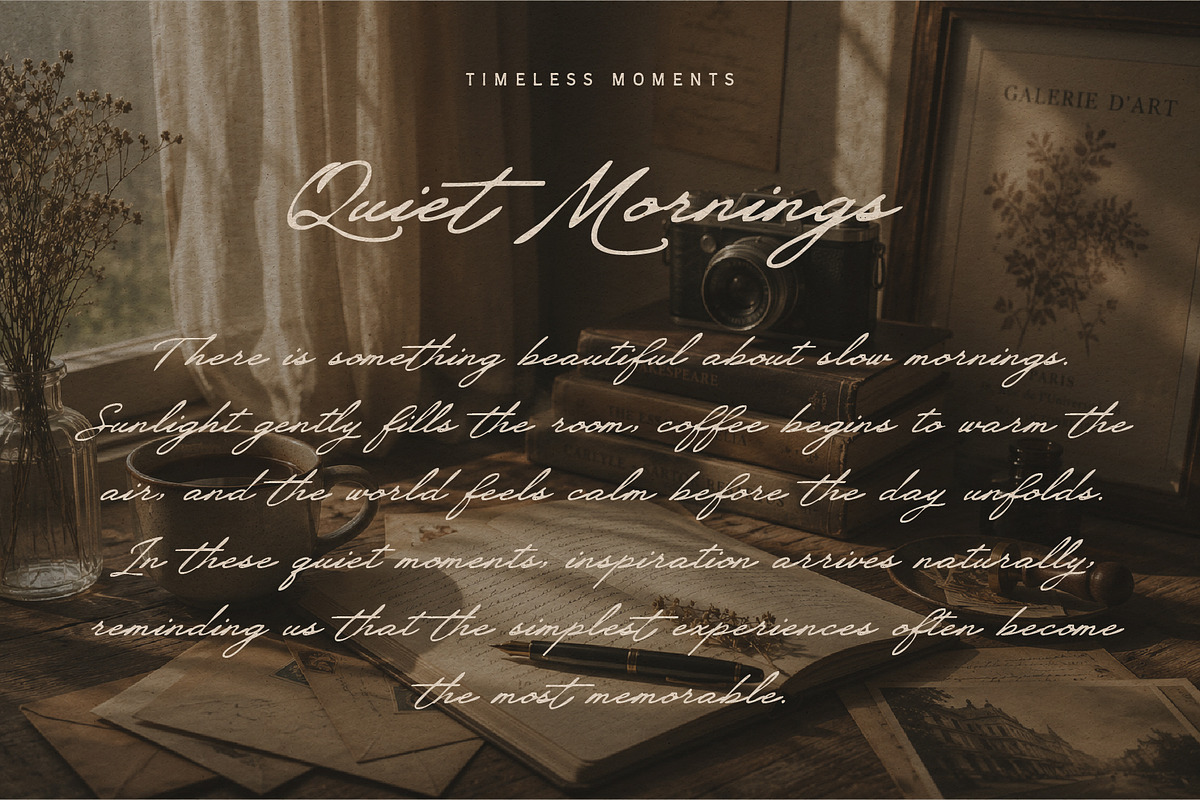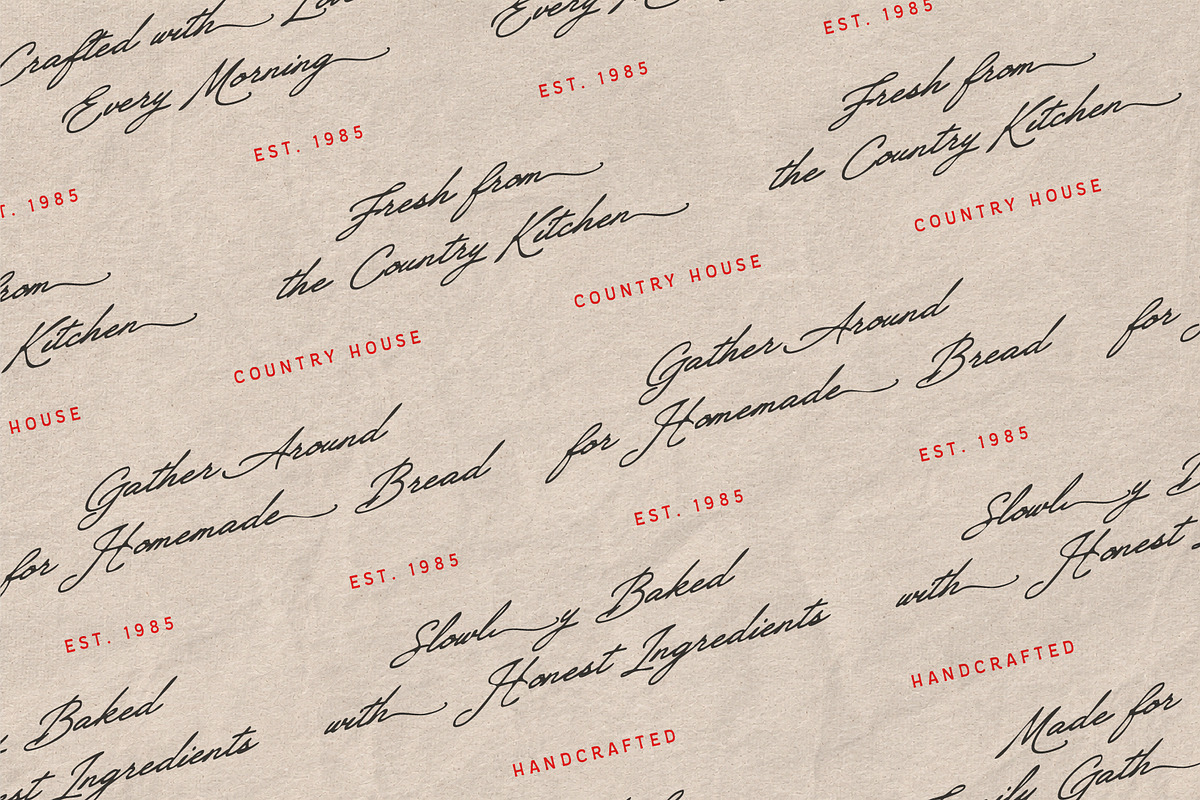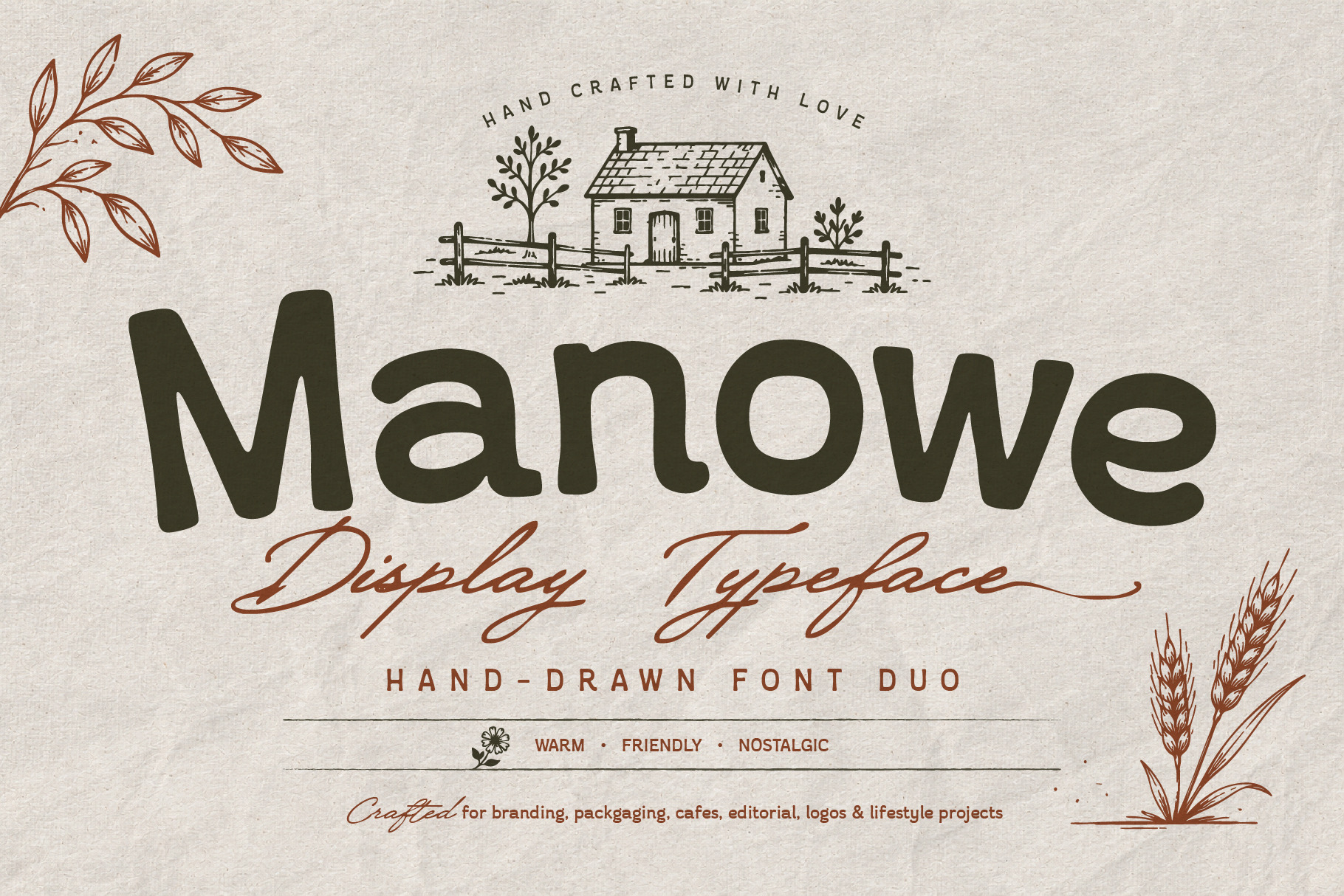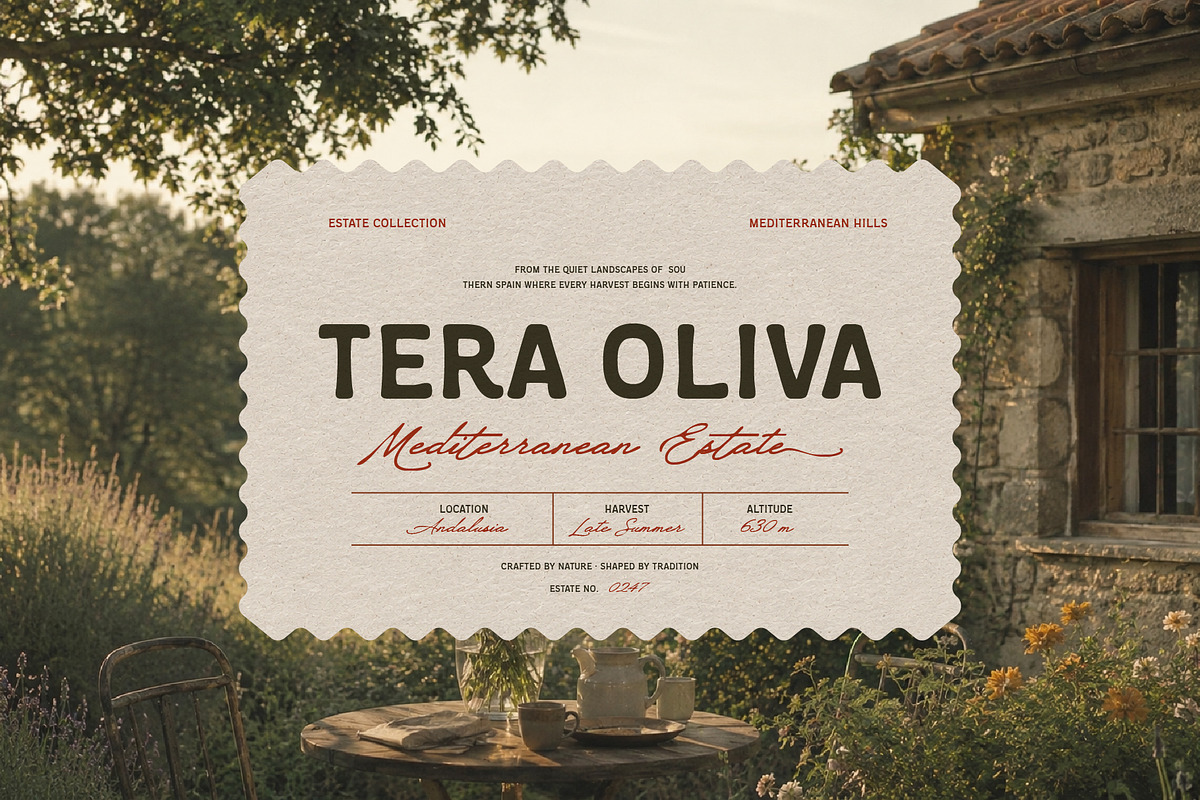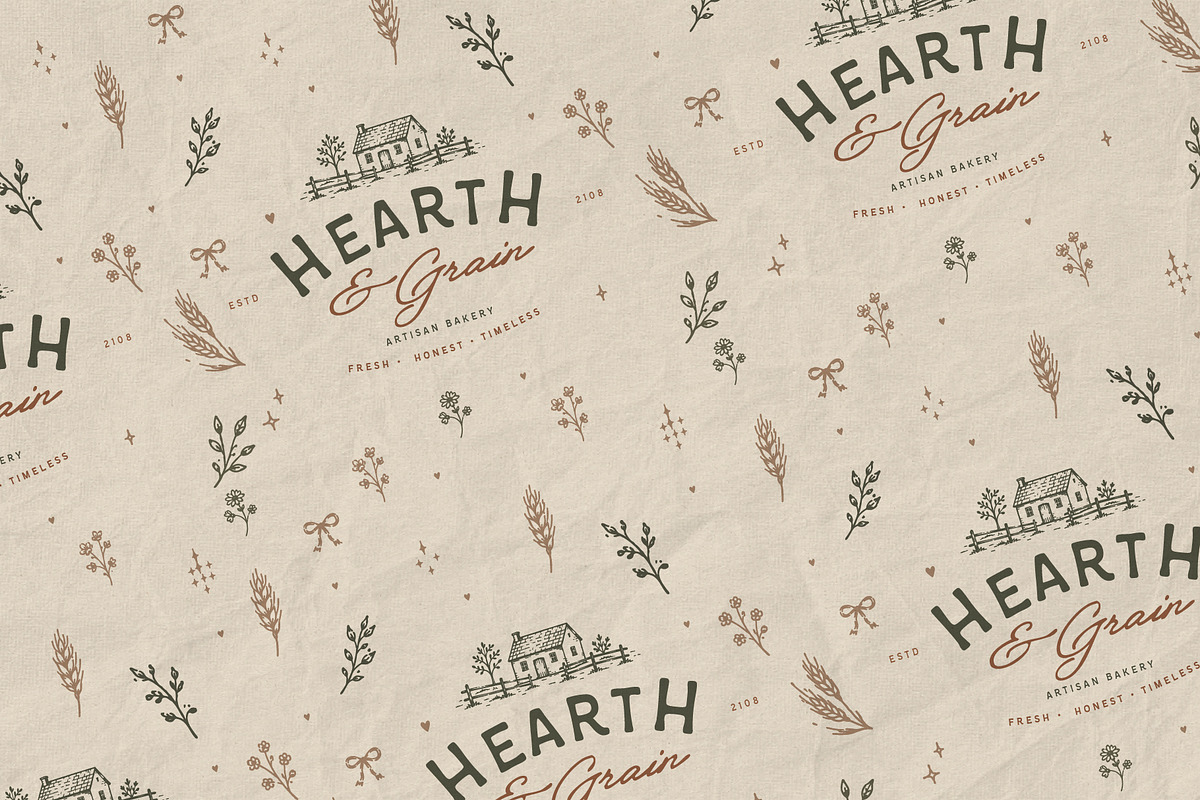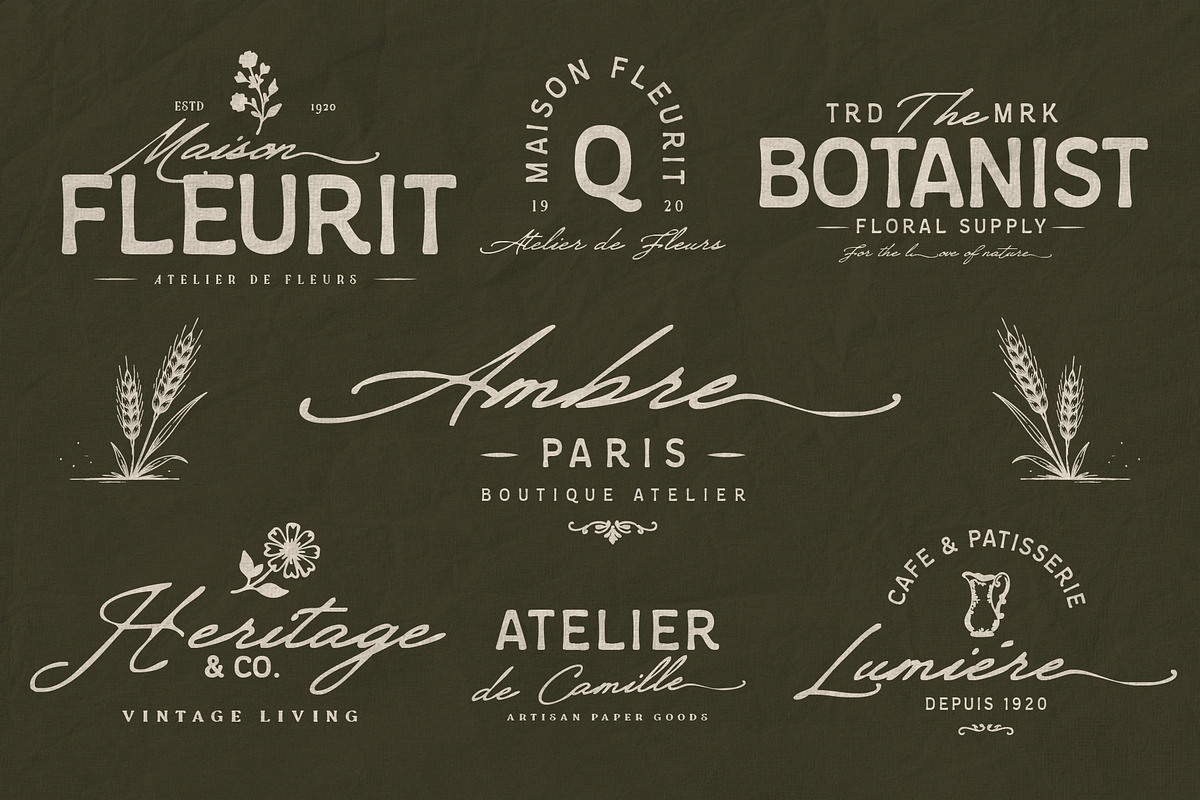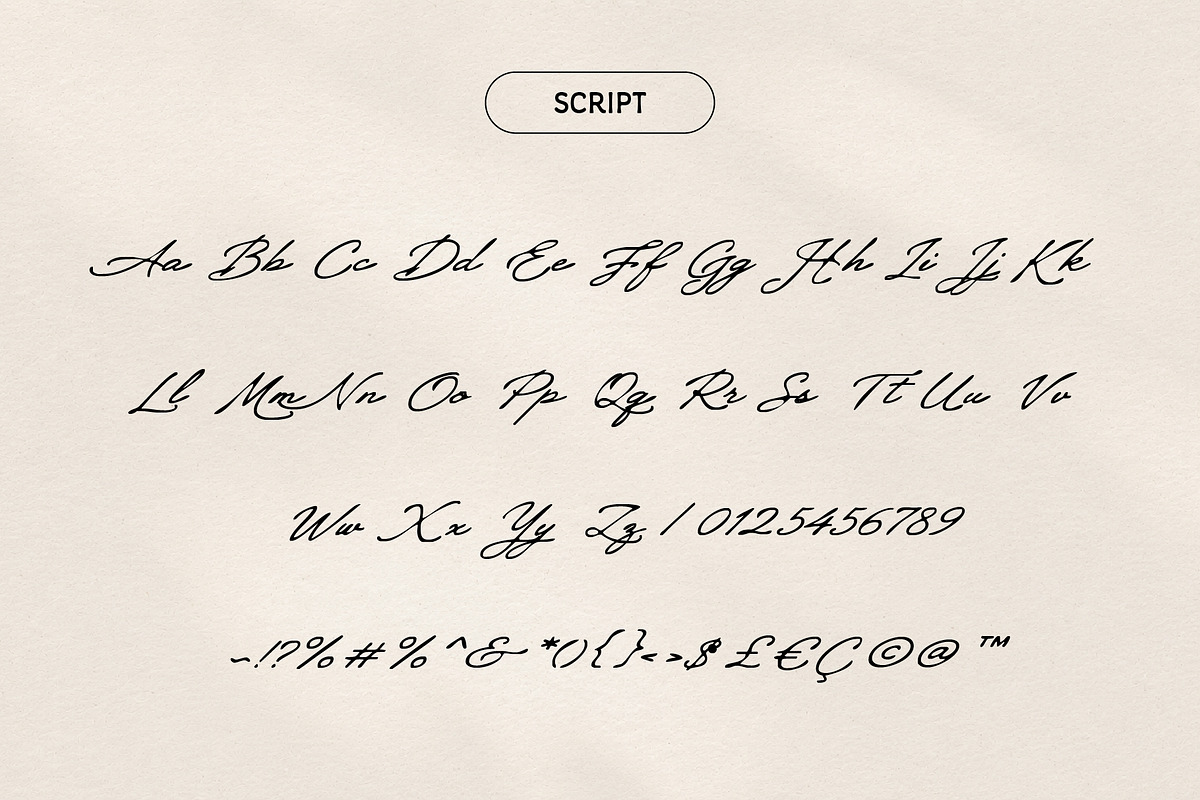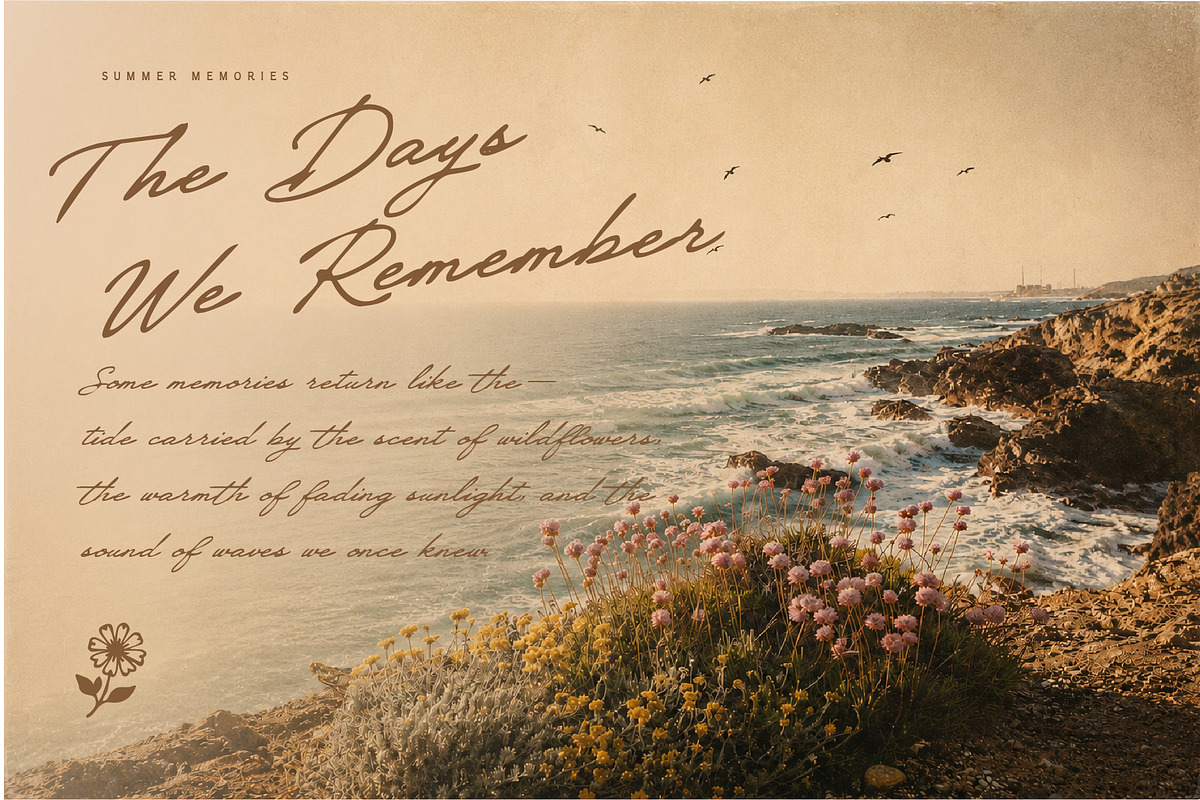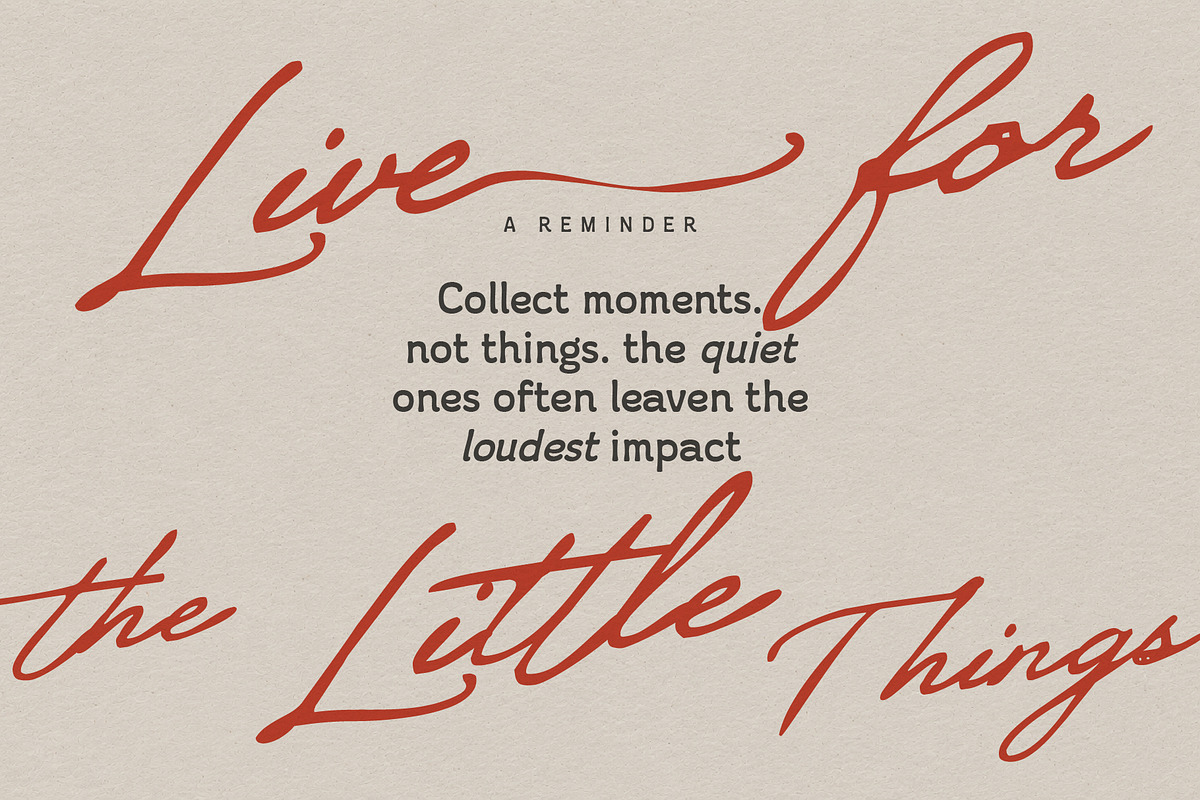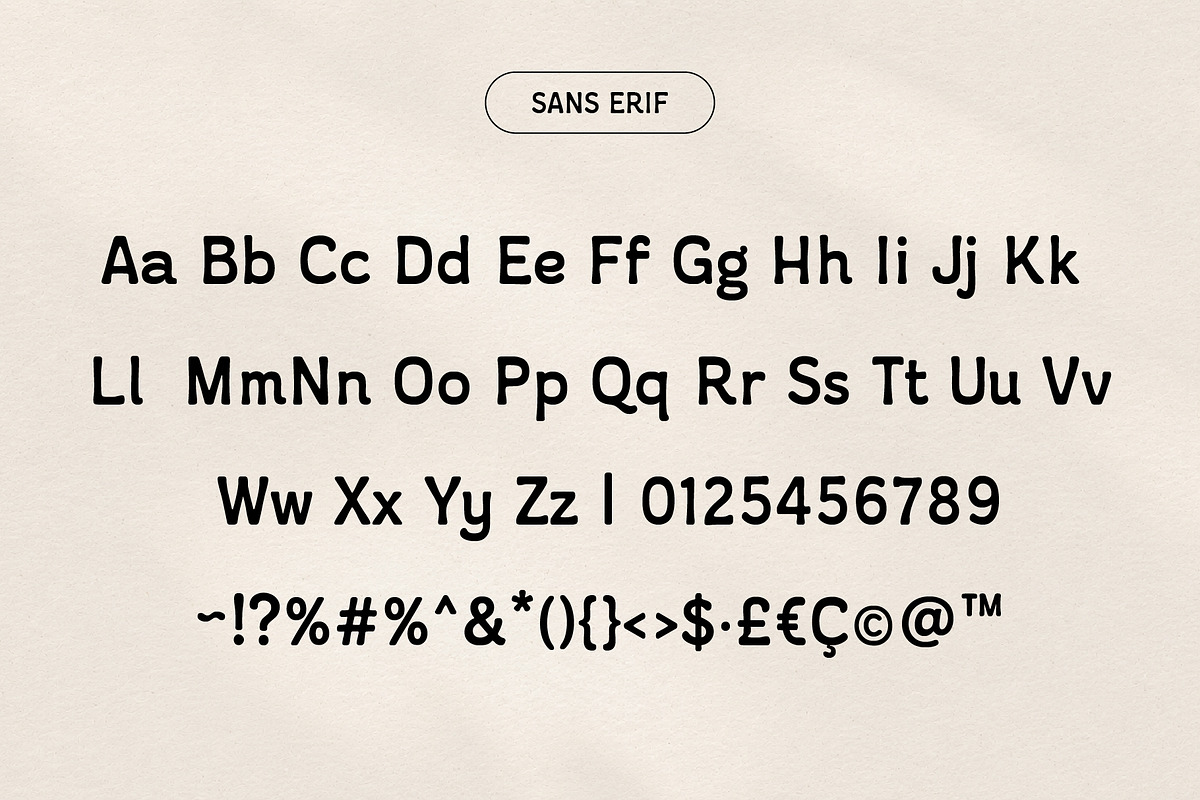
Manowe - Hand Drawn Display Font
Manowe is a handcrafted font duo designed to capture the warmth of handmade lettering with a soft, friendly, and rustic personality. Built with organic curves, rounded forms, and a natural handcrafted feel, Manowe brings a charming balance between playful character and clean readability. Paired with an elegant handwritten script, this duo creates a harmonious type system that feels approachable, nostalgic, and full of personality.
Inspired by farmhouse aesthetics, artisan goods, countryside living, vintage labels, handmade products, cozy cafés, and rustic branding, Manowe adds a warm and authentic atmosphere to every design while remaining versatile for contemporary creative work.
Whether you're designing logos, rustic branding, café identities, bakery packaging, restaurant menus, product labels, editorial layouts, posters, book covers, invitations, apparel, or social media content, Manowe helps every project feel natural, welcoming, and memorable.
Manowe Display — a hand-drawn display font with soft rounded shapes, organic proportions, and a warm rustic character that makes your typography feel bold yet approachable.
Manowe Script — a smooth handwritten script with flowing strokes and natural movement, created to beautifully complement the display font for elegant and personal typography.
Ligatures & Stylistic Alternates
Uppercase, Lowercase, Numerals, Punctuation & Symbols
Designed for creatives who love authentic handcrafted typography, Manowe brings a warm and natural feeling into modern design. With its rustic charm, friendly shape, and elegant handwritten companion, Manowe creates typography that feels personal, timeless, and full of character.